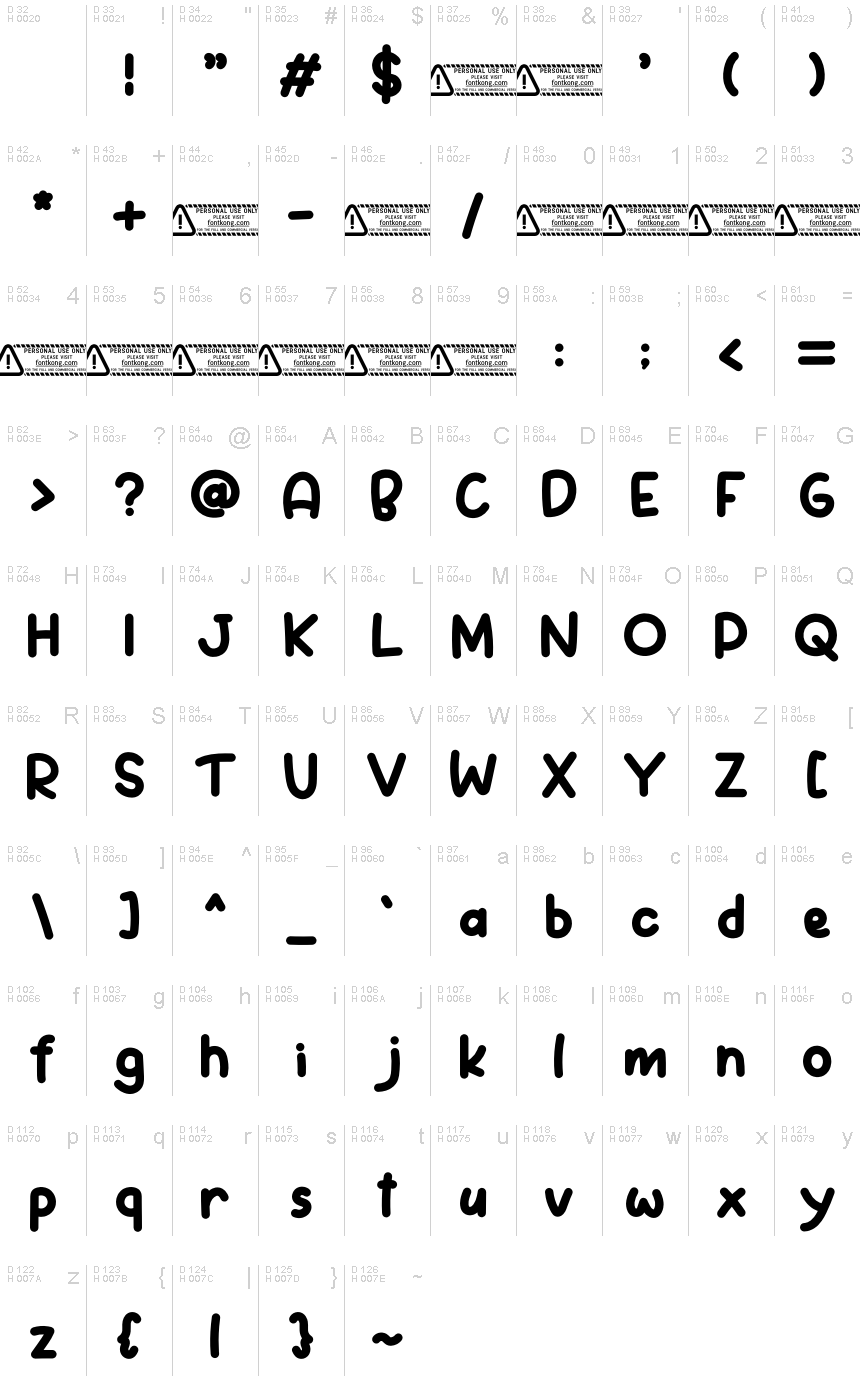
Time Zone, a captivating display font crafted by Kong Font, exudes a playful and whimsical charm. Its rounded, cartoon-inspired letterforms create a lighthearted and inviting aesthetic, capturing the imagination with a touch of nostalgia. The font's bold, distinctive strokes and subtle variations in weight add depth and character, making it a standout choice for a variety of design projects.
The striking and visually engaging nature of Time Zone makes it an excellent selection for branding, packaging, and advertising applications where a memorable and attention-grabbing typeface is desired. Its versatility also extends to creative projects, such as children's books, greeting cards, and event posters, where its playful personality can truly shine and connect with the audience.